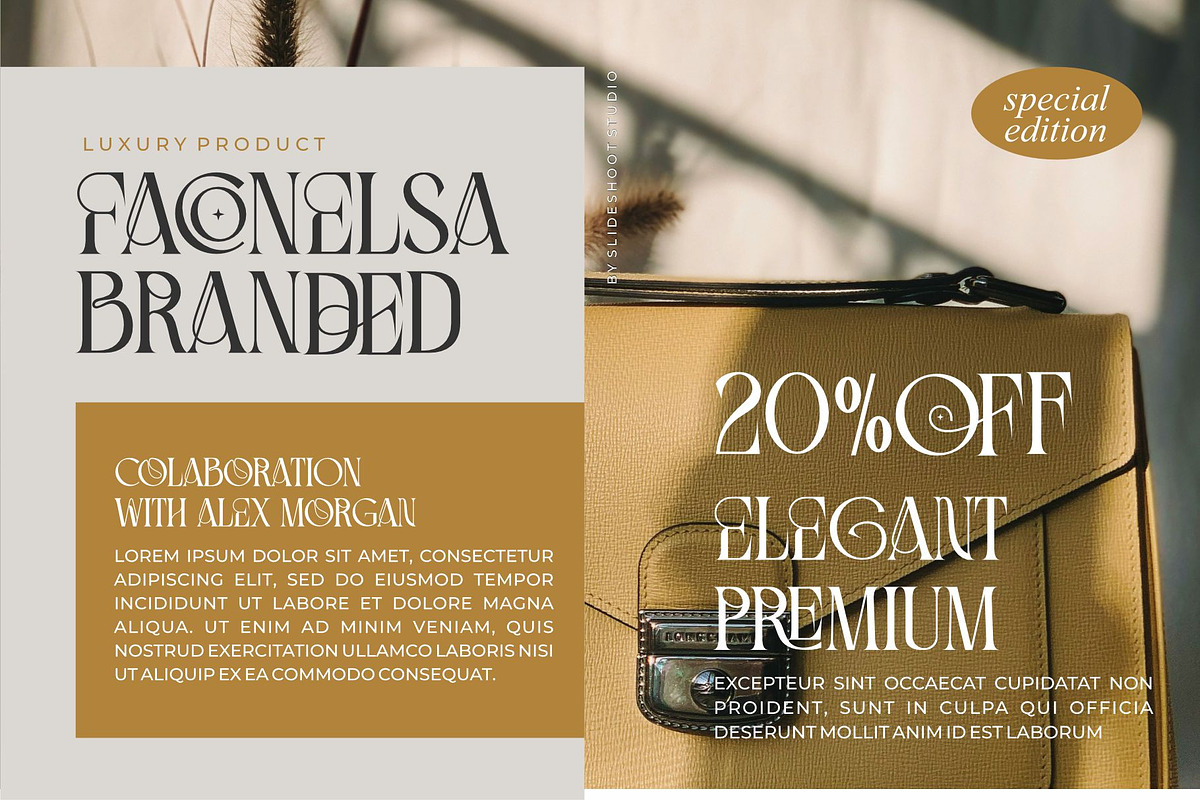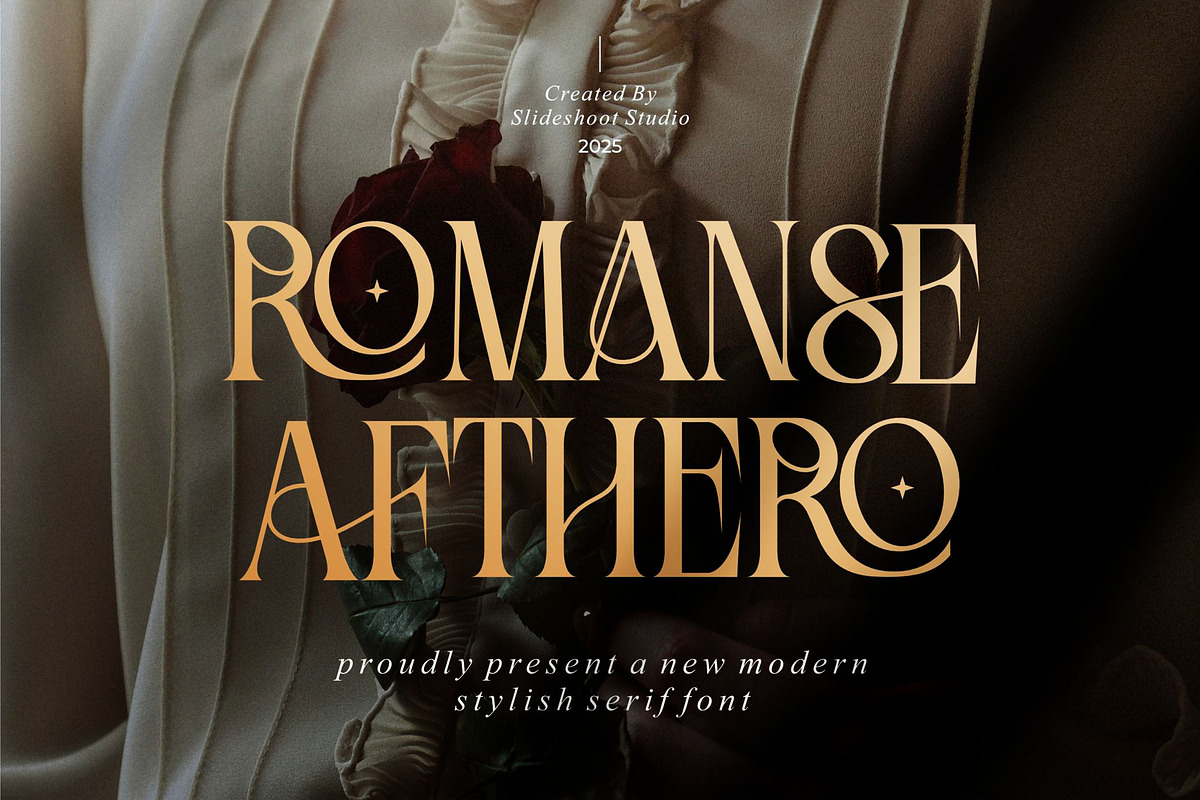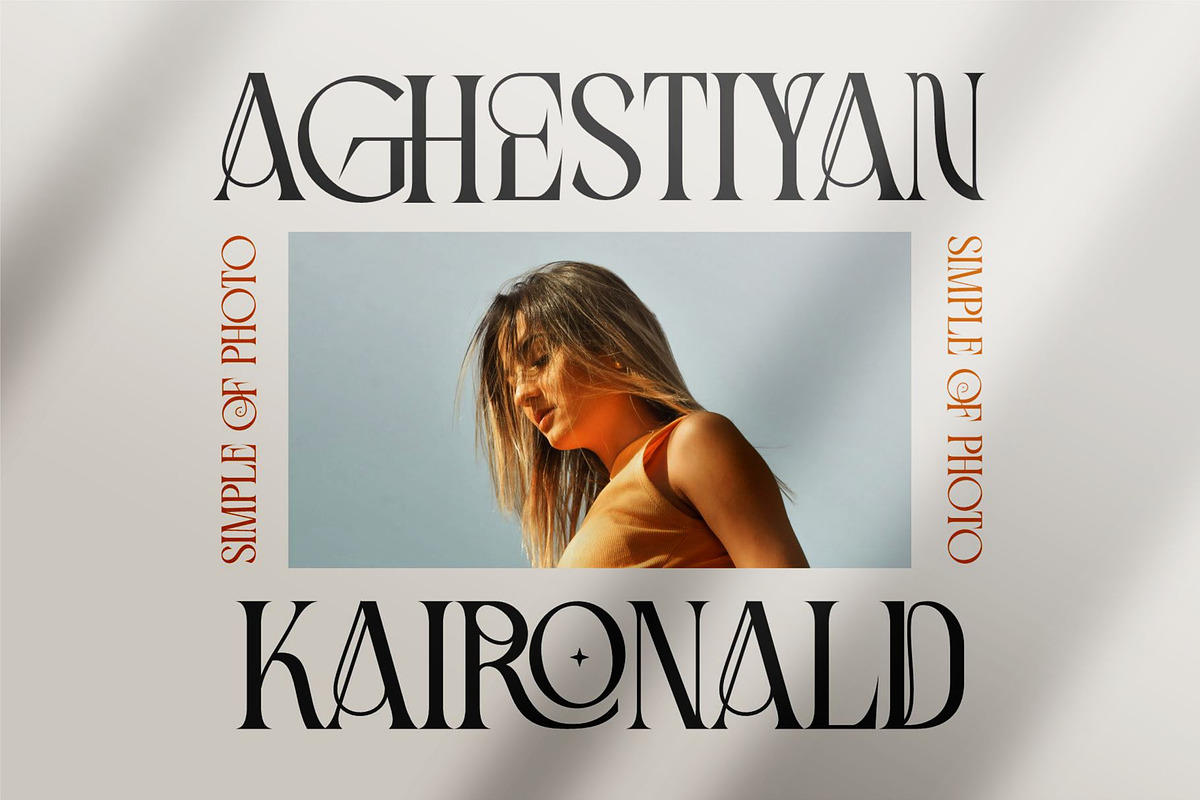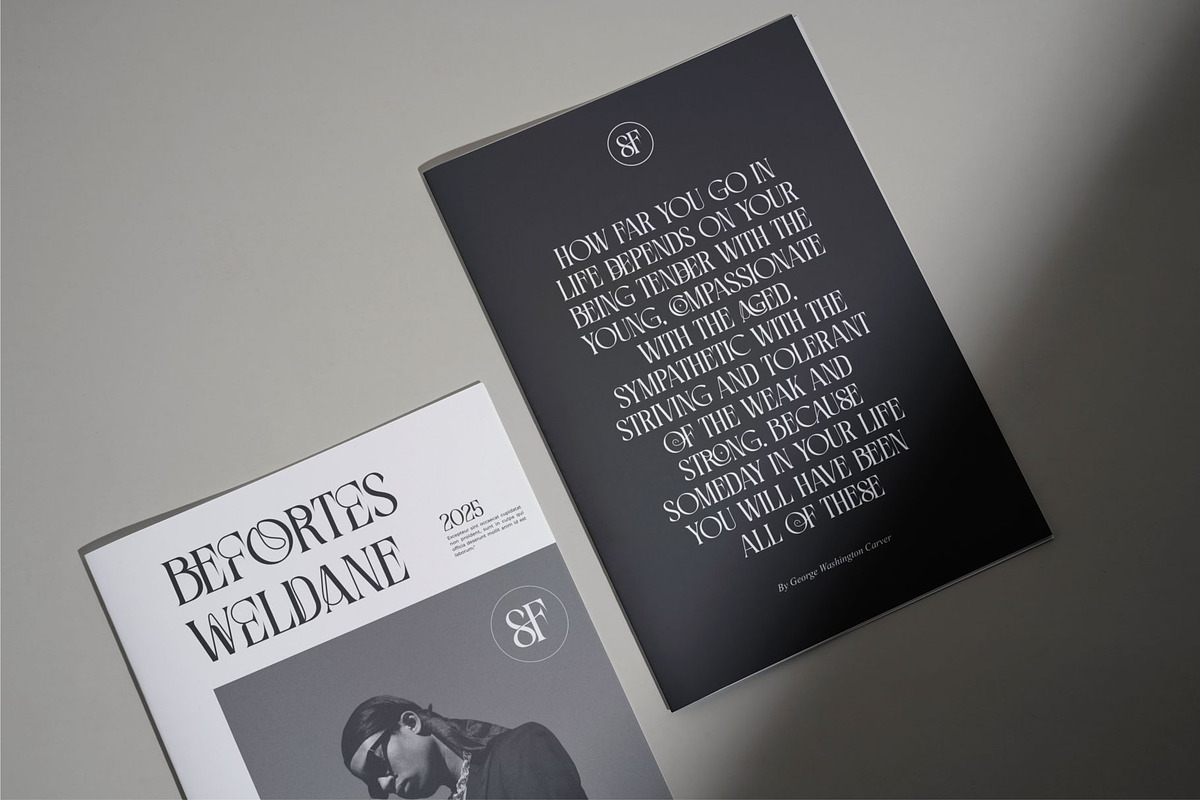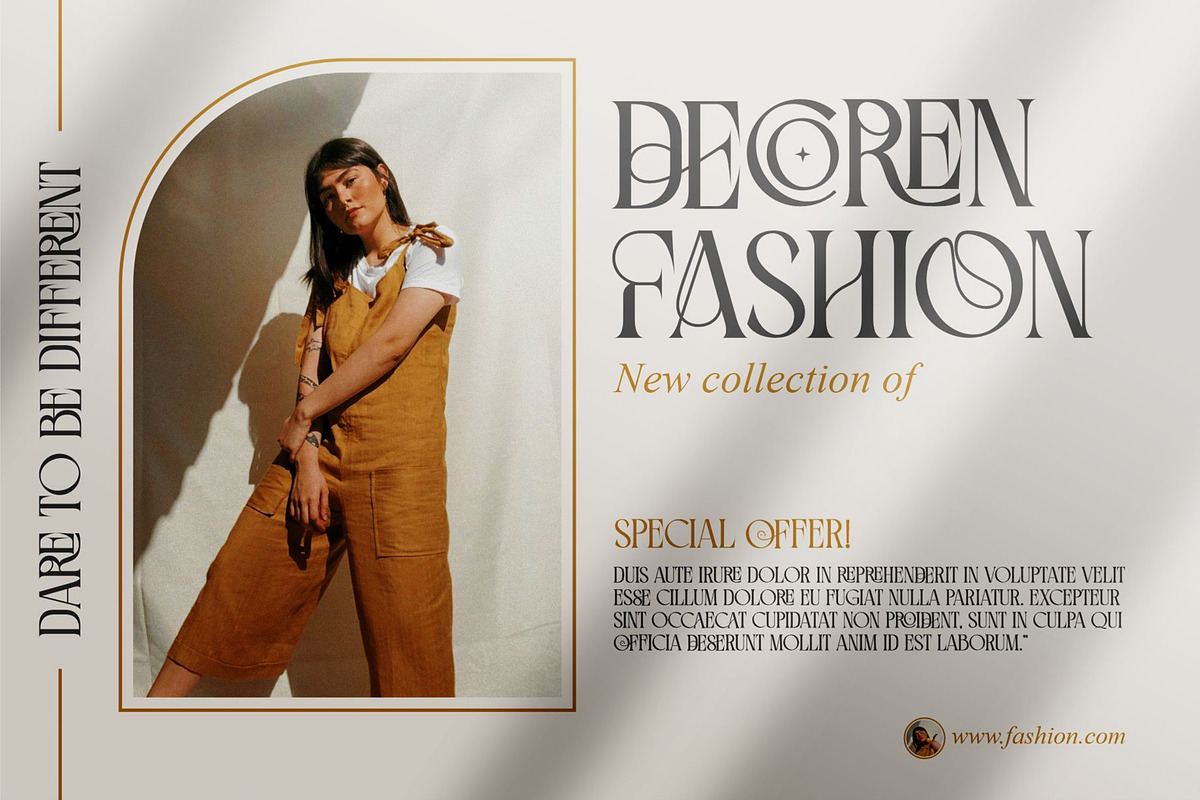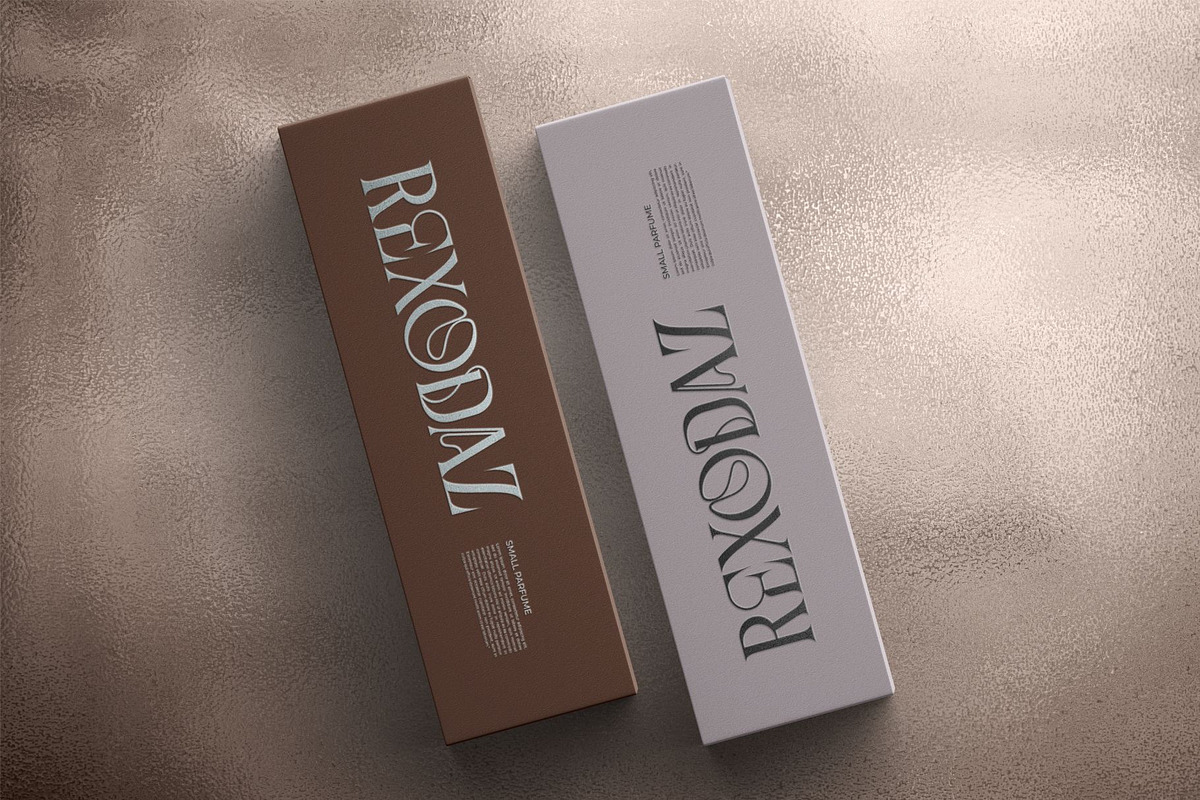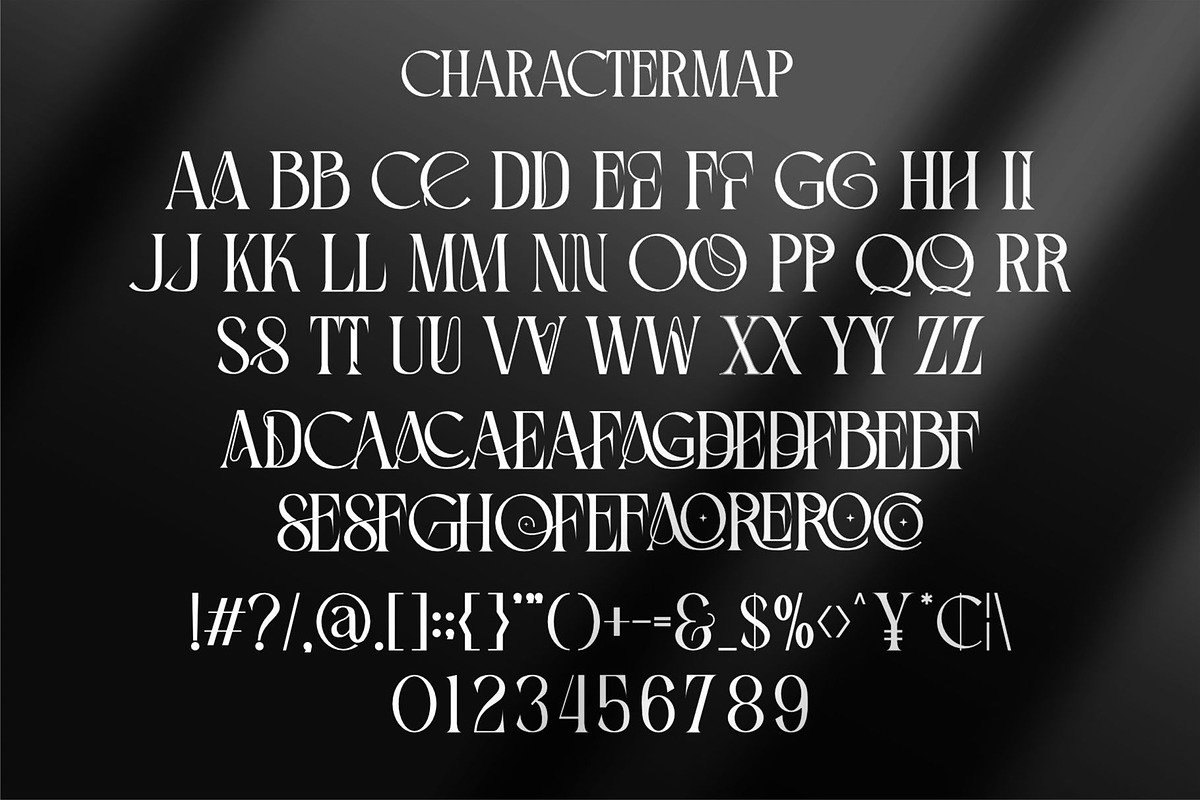
Romanse Afthero || Modern Allkaps Se
Introducing Romanse Afthero is modern serif font, trendy, bouncy and cute display font. It has a unique character with wood theme. It is perfect to be combined with invitation card designs, company logos, movie titles, movie names, business cards, book titles, brand names and various other designs.